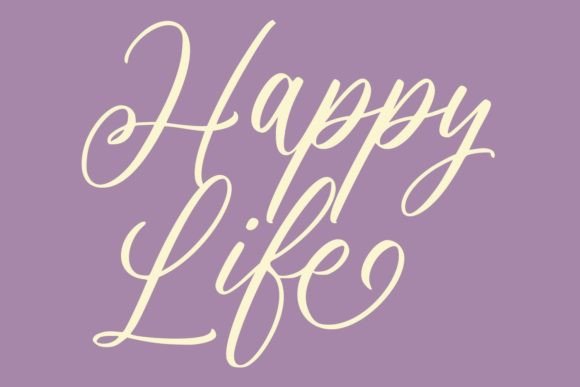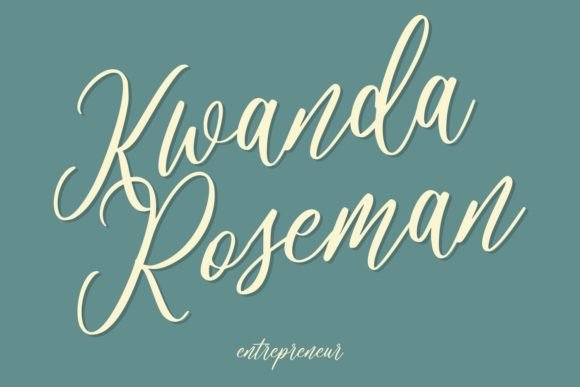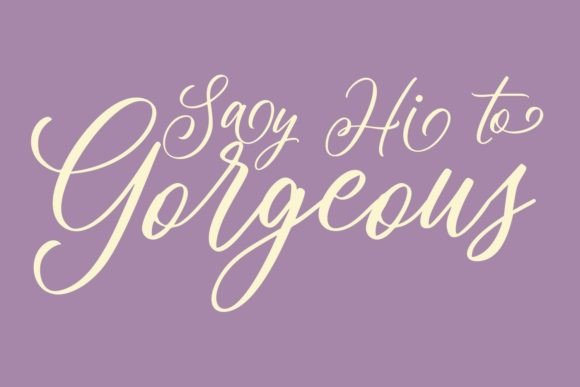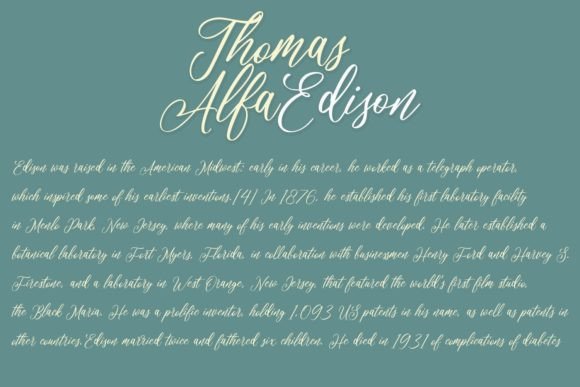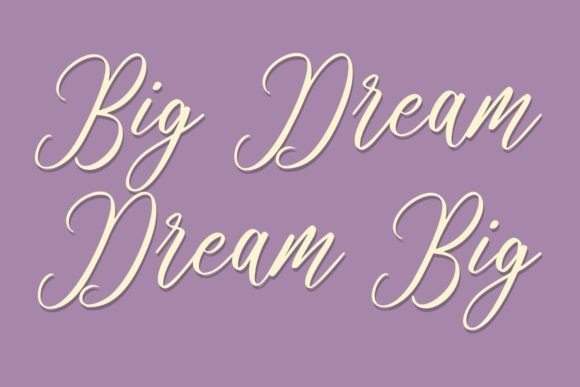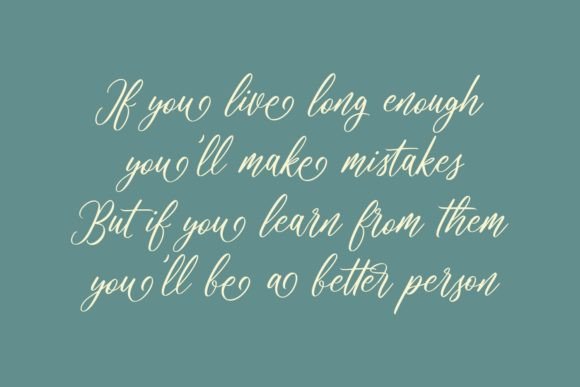
Have you ever sat in front of a blank page, staring at your computer screen, waiting for inspiration to strike? You’re not alone. As a designer, finding the perfect font to match your vision can be a daunting task. But what if I told you that there’s a font that can bring your creative ideas to life?
Introducing the Filmora Font, a classic and fancy script font that’s perfect for logo design, social media, movie titles, book titles, and even short or long text. With its high contrast stroke, fun character, and ligatures, this font is a game-changer for designers looking to add a touch of elegance to their work. Whether you’re creating a stunning logo or a captivating book title, the Filmora Font is the perfect addition to your design arsenal.
Filmora Font Key Features
- Unique Characteristics: Filmora Font features a distinctive, modern design with a mix of bold and delicate lines, making it perfect for creating visually striking titles and graphics.
Review of Filmora Font
Tips for Getting the Most Out of Filmora Font
Here are some tips to help you get the most out of Filmora Font:
- Experiment with different font sizes and styles to find the perfect look for your project.
- Use Filmora Font in combination with other design elements, such as graphics and images, to create a cohesive look.
- Take advantage of the font’s versatility and use it in a variety of projects, from social media graphics to presentations.
Common Use Cases for Filmora Font
Here are some common use cases for Filmora Font:
- Social media graphics and posts.
- Presentations and slides.
- Marketing
Alternatives to Filmora Font